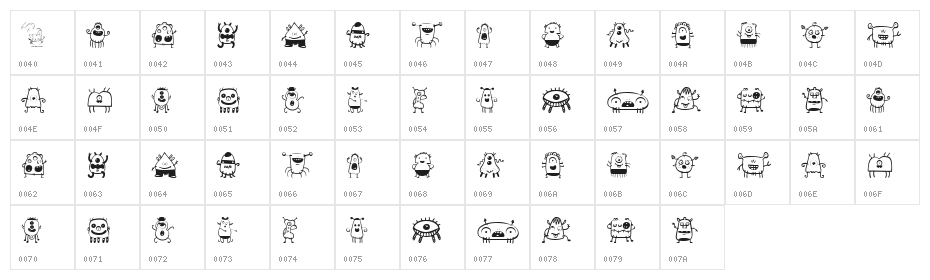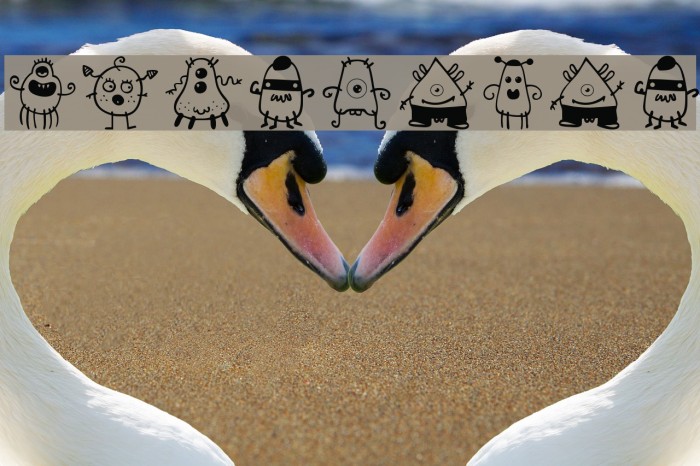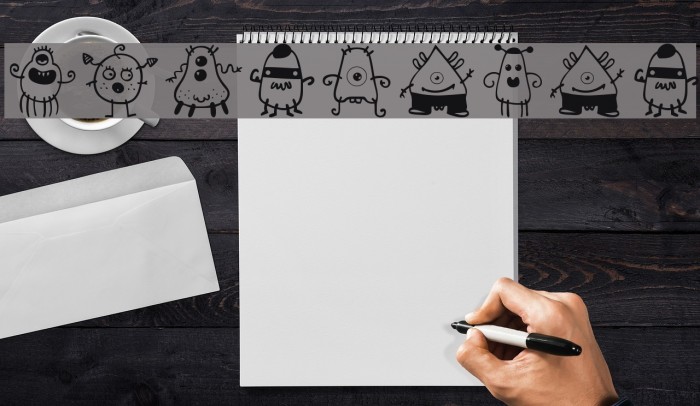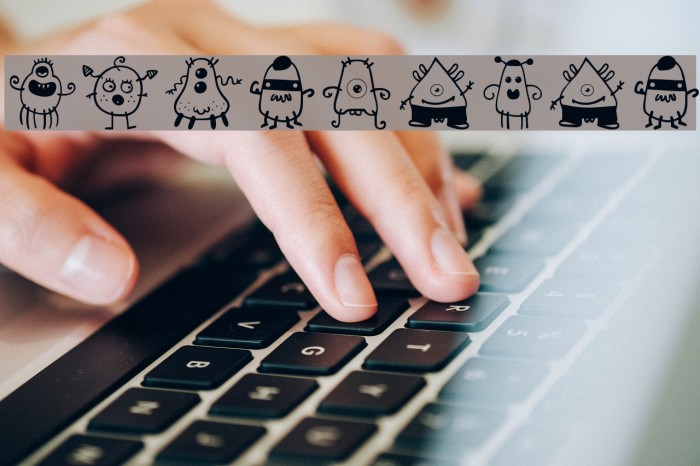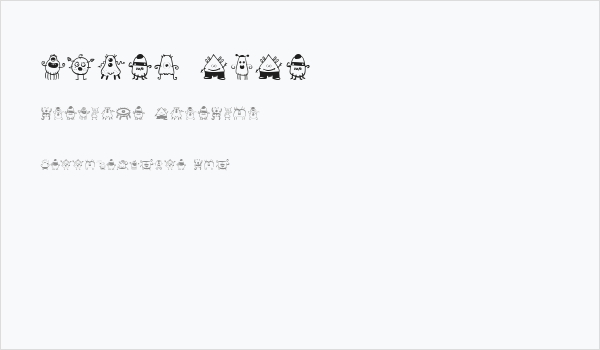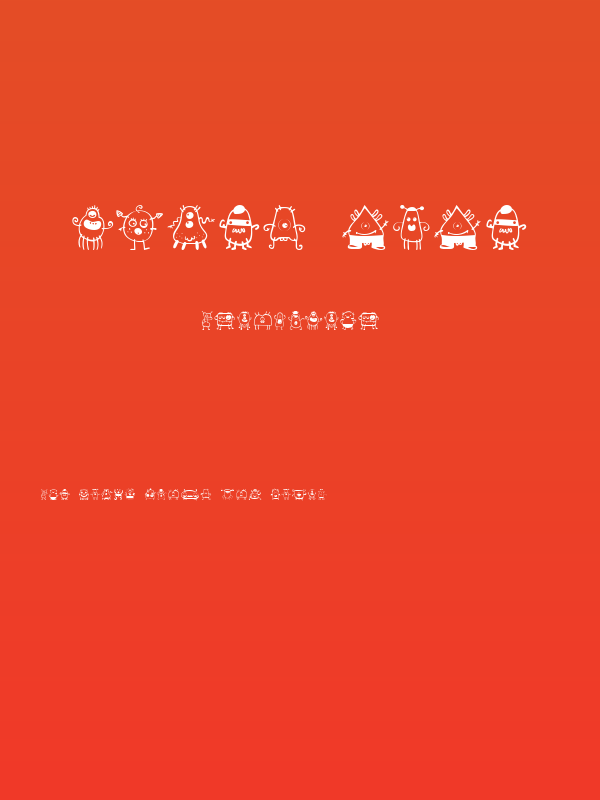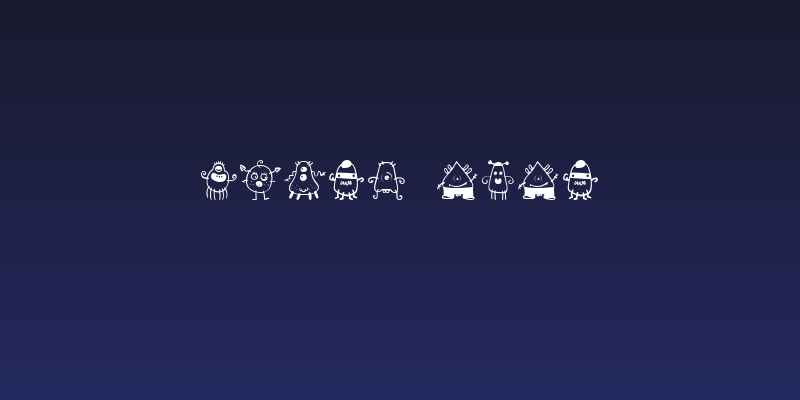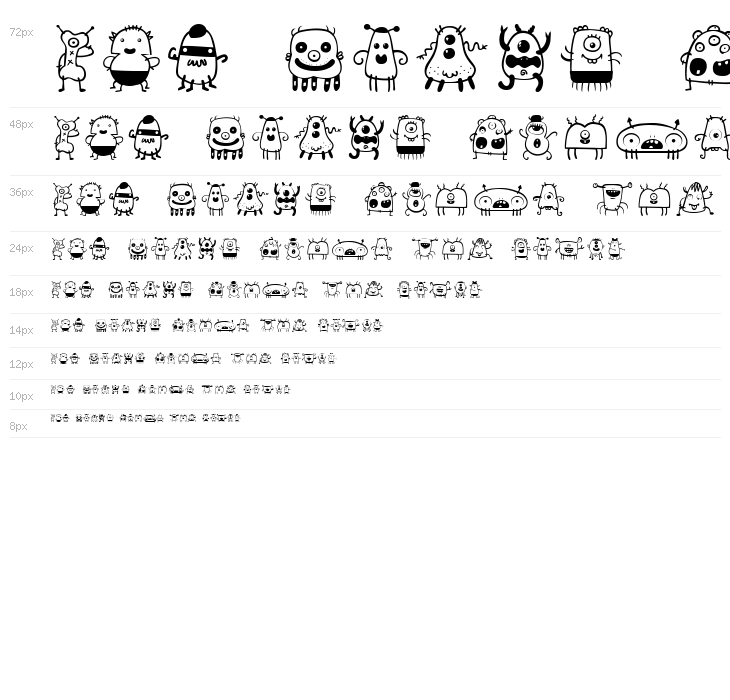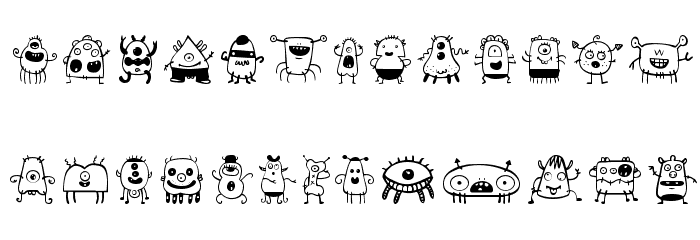
alien dude Font
alien dude Description
A playful, hand-drawn decorative font featuring quirky alien and monster characters for each letter and symbol, with whimsical line work and varied shapes that evoke a fun, cartoonish style.
| Overall Style | Playful, Cartoonish, Decorative |
| Use Case | Headlines, Posters, ChildrenΓ’β¬β’s materials, Logos |
| Proposed Projects | ChildrenΓ’β¬β’s books, party invitations, posters, educational materials, playful branding. |